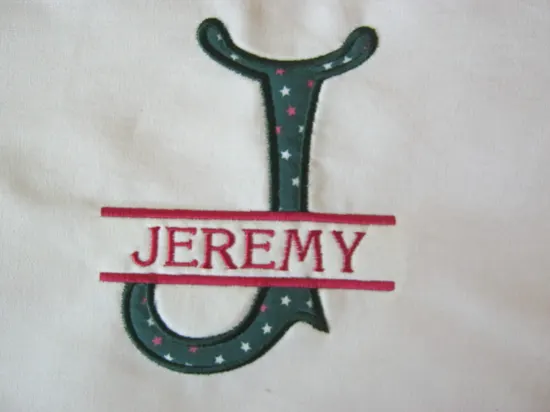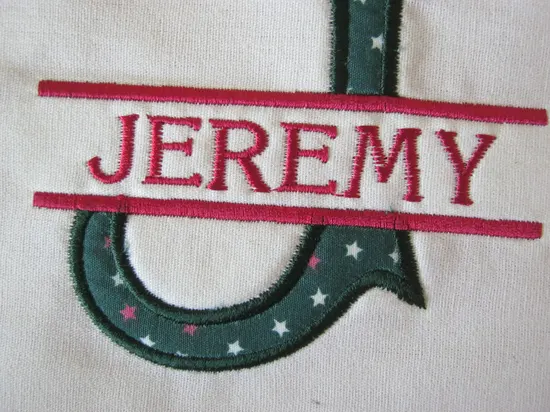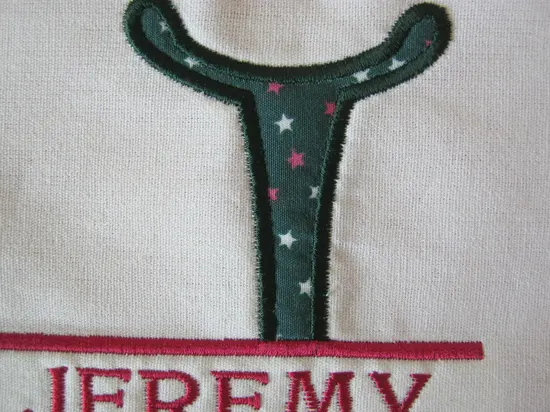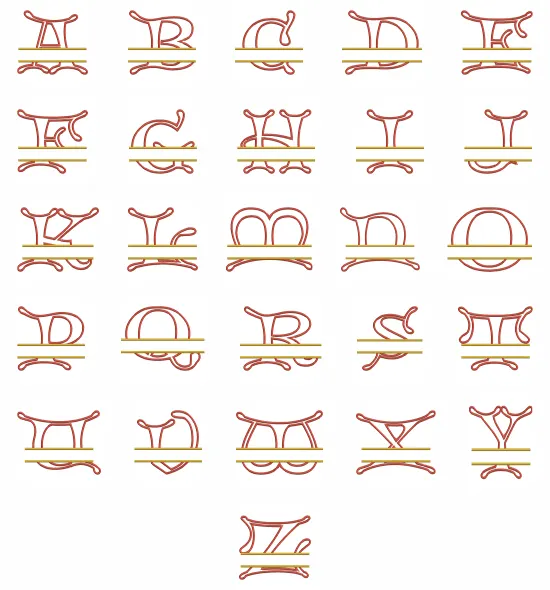
The full set of Christmas Applique Split Font with all upper case letters to personalize with a name inbetween the bars. They are brilliant to personalize towels, bags and garments with.
With the the letters ranging from 4" tall to 7" tall there is a size to fit every project.